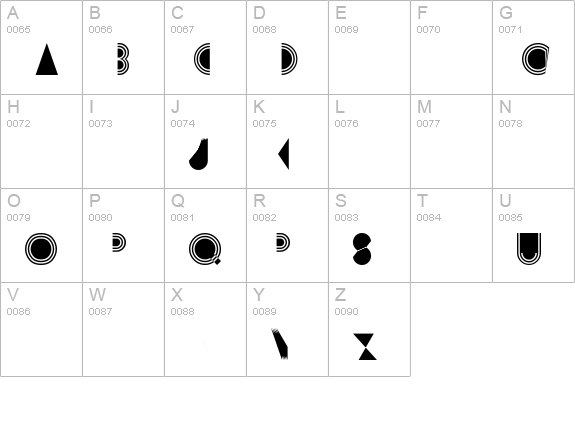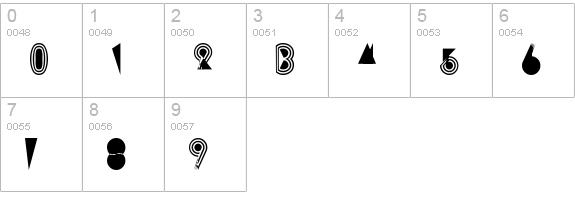
Prisma font is a stunning display typeface that exudes elegance and modernity. With its unique geometric shapes and clean lines, Prisma is perfect for adding a touch of sophistication to any design project. This versatile font is ideal for logos, branding, headlines, and more. The best part? Prisma font is completely free to download at FontsMarket.com. Take advantage of this amazing offer and elevate your designs with the beauty and style of Prisma font. Don't miss out on this opportunity to enhance your projects with a font that is both eye-catching and professional. Download Prisma font today and let your creativity shine!